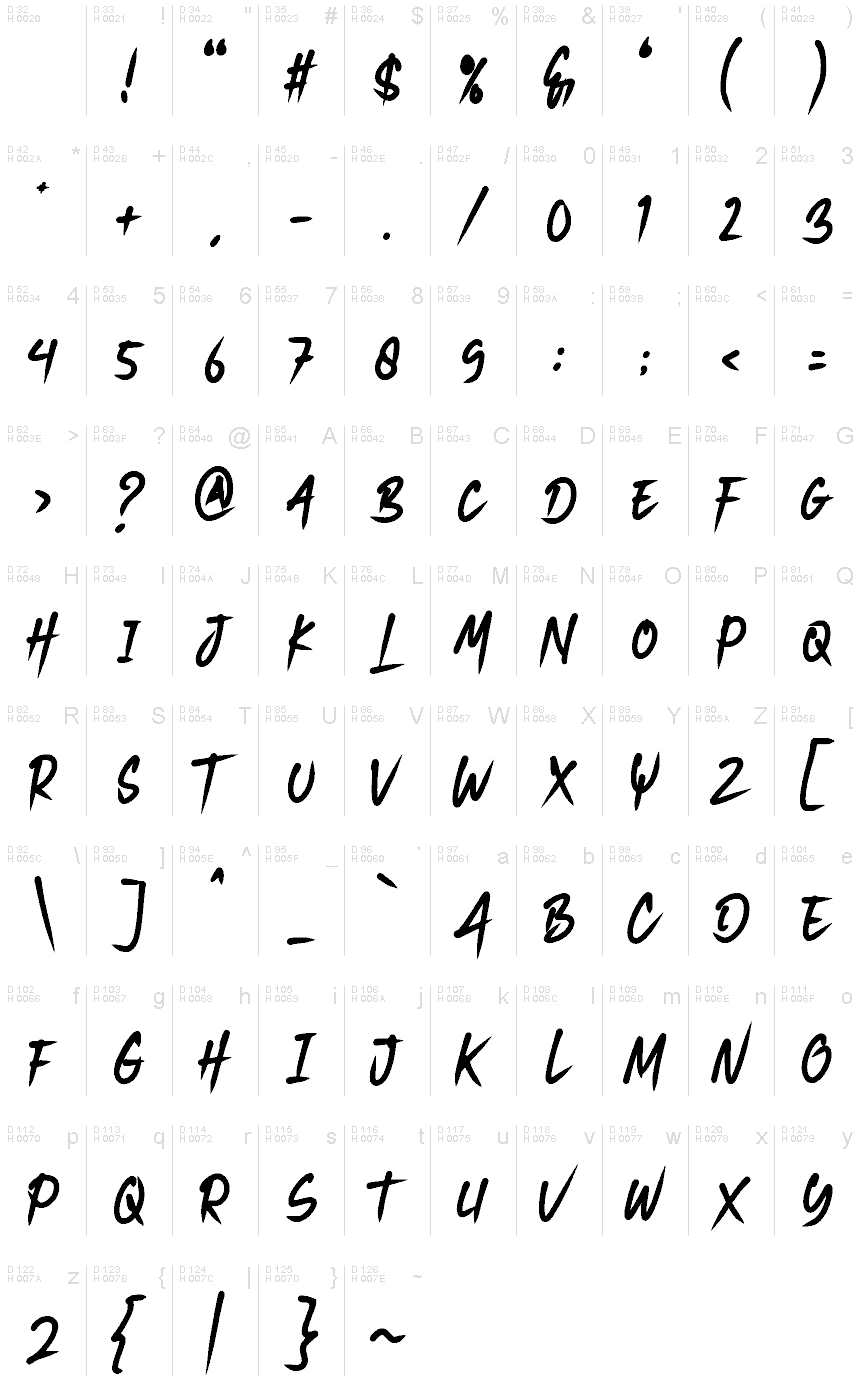
The Hallow Free Regular
The Hallow font by Typetemp Studio is a free brush font with an elegant yet slightly aggressive appearance that combines opposite attributes for interesting displays. Informal by nature, it reflects a modern style that looks both expressive and energetic.
Design glamorous event invitations or artist business cards, develop a logo for contemporary shops or online platforms, or create eye-catching social media posts. Let the letters become the center of attention with poster designs and magazine covers or add more vividness to texts featured on comics and animated projects.